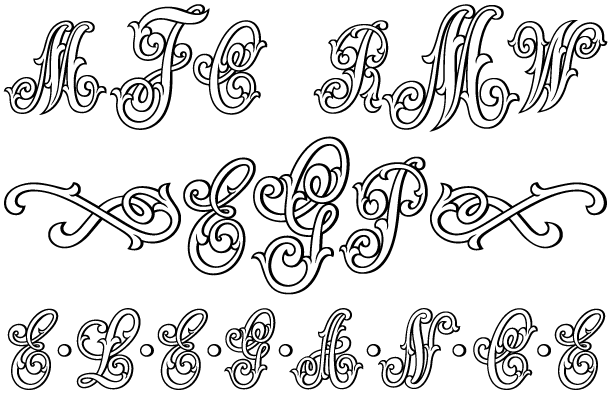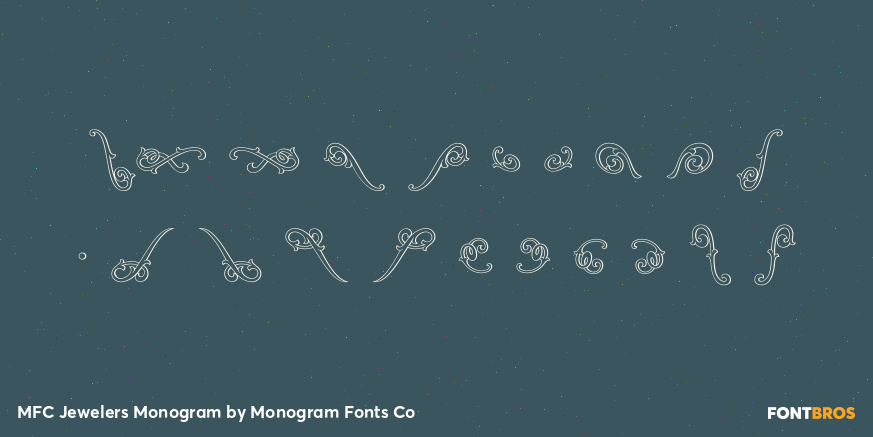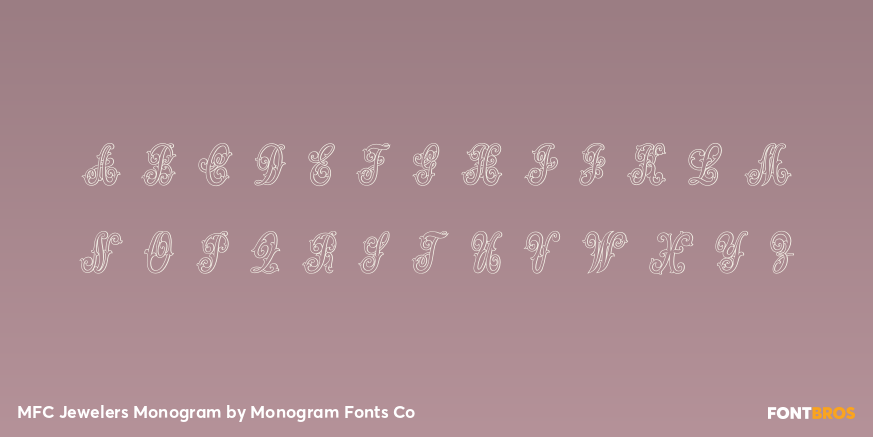
MFC Jewelers Monogram
Font Family by Monogram Fonts Co
The source of inspiration for Jewelers Monogram is a decorative alphabet designed in 1901 by Marcus Goldsmith, an inventor of elegant accessories of personal nature. Originally developed to be used as individual letters or for advertising purposes, this elegant lettering style is now digitally remastered and updated with smallcaps for modern monogram typesetting use for additional functionality beyond its original intentions.